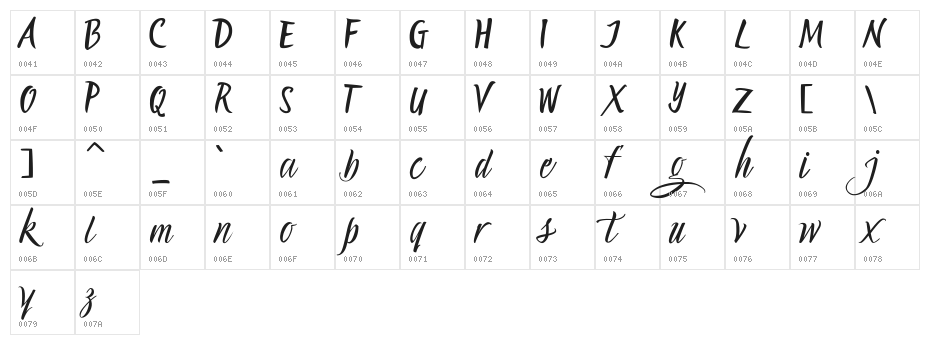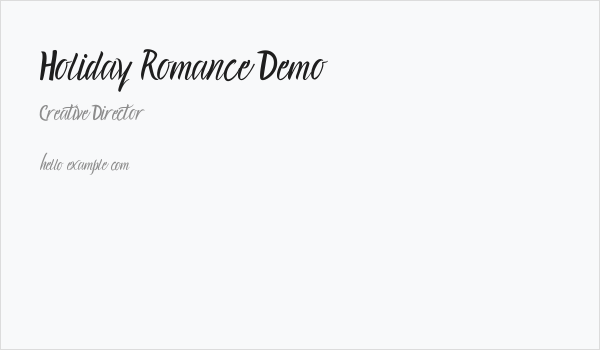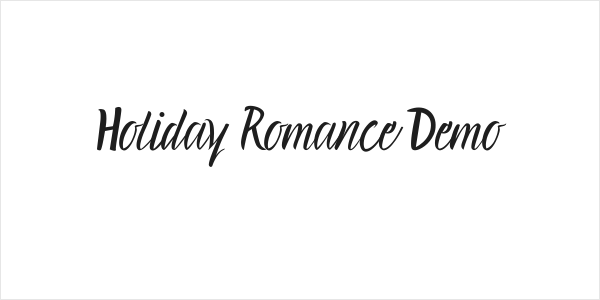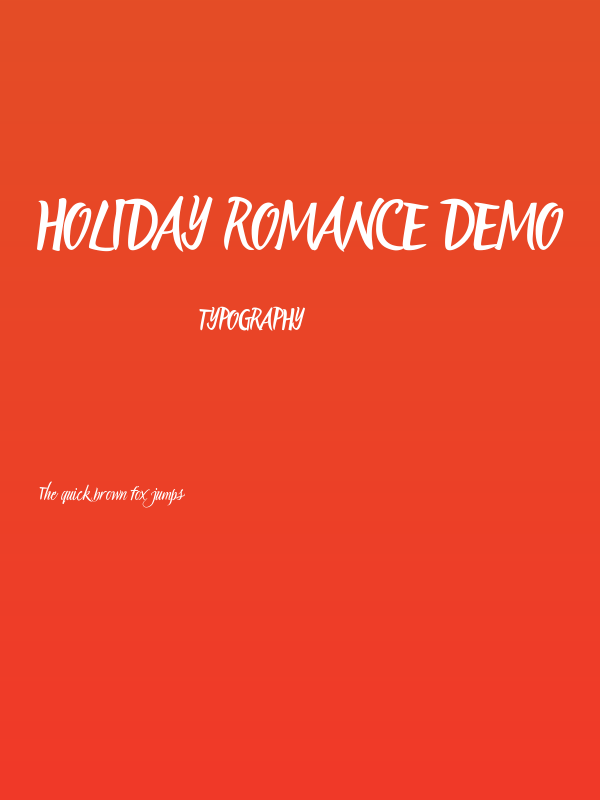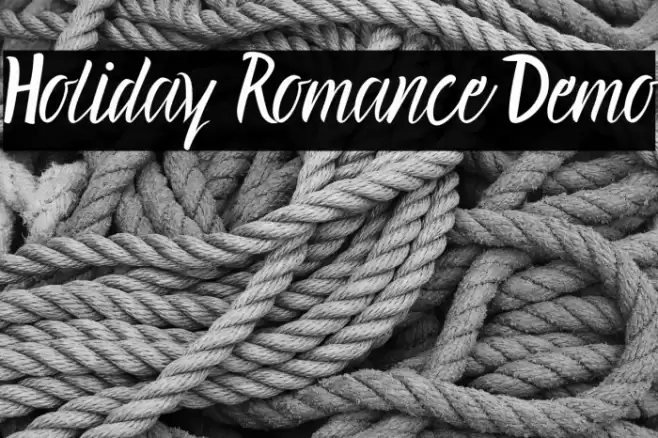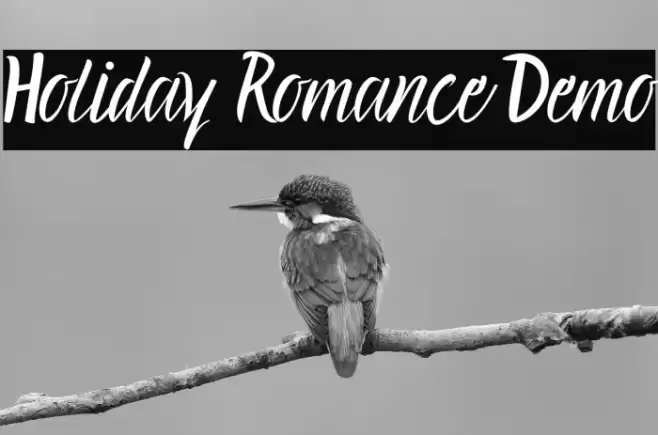
Holiday Romance Demo Font
This font exudes a lively and dynamic energy, characterized by its bold and fluid strokes. The letters are crafted with a sense of movement, giving them a handwritten, personal touch. The uppercase letters are particularly striking, with their tall and slightly slanted forms, while the lowercase letters maintain a consistent flow, enhancing readability. The font's playful nature is further emphasized by its varying stroke widths, adding a sense of rhythm and spontaneity. This style is perfect for projects that require a touch of elegance combined with a casual vibe, making it suitable for invitations, greeting cards, and branding that aims to convey warmth and approachability.
| Proposed Projects | Ideal for wedding invitations, greeting cards, branding, and social media graphics. |